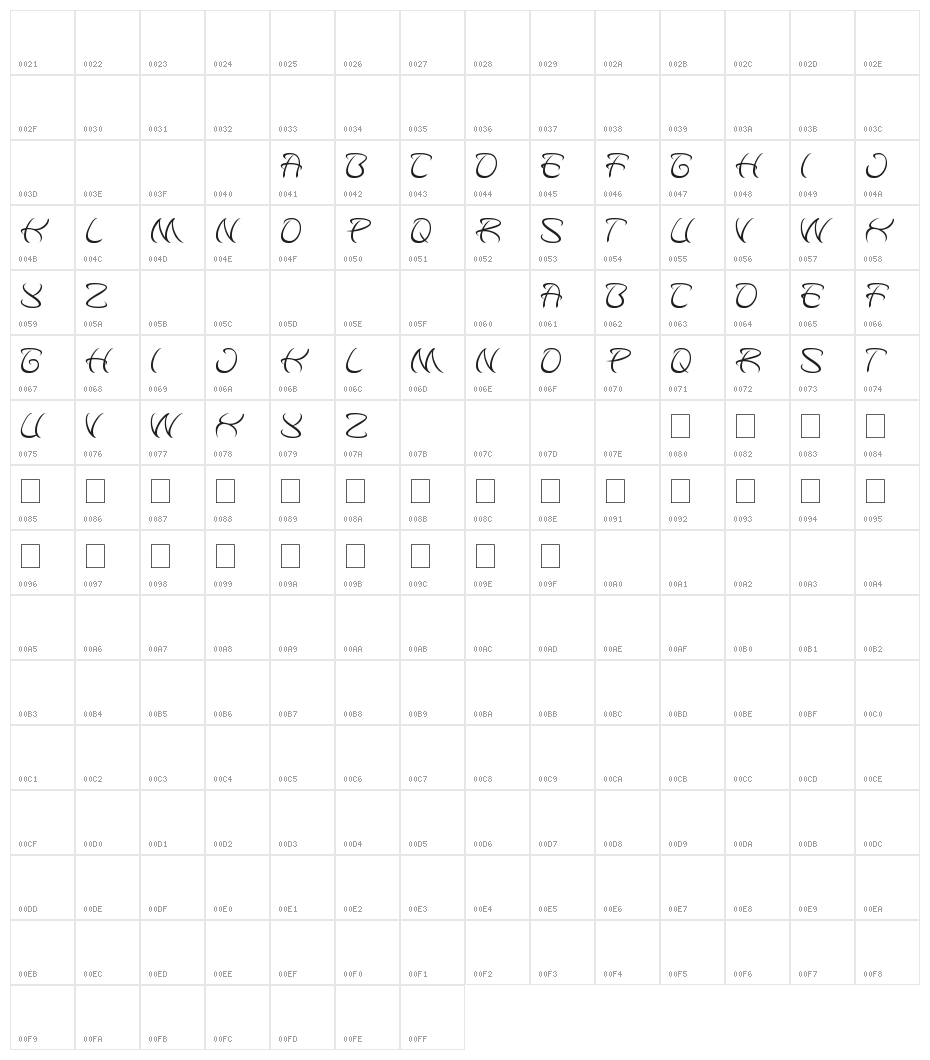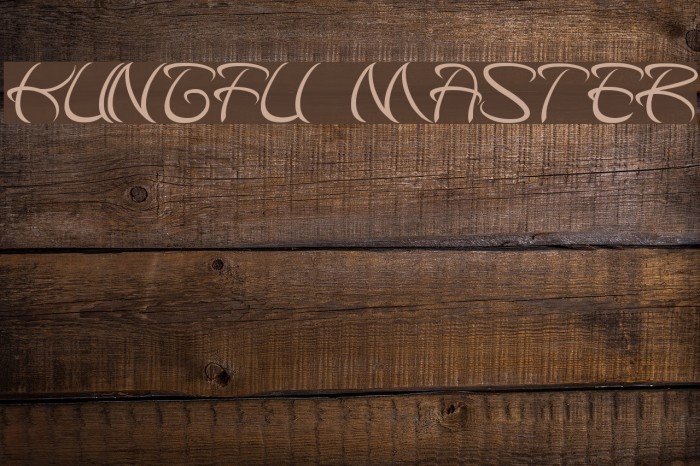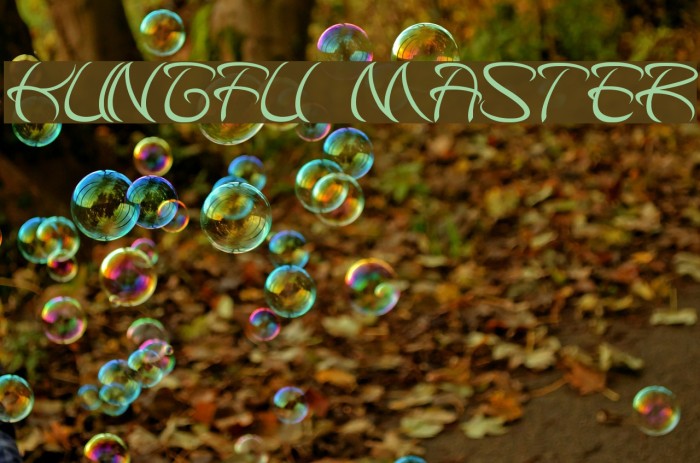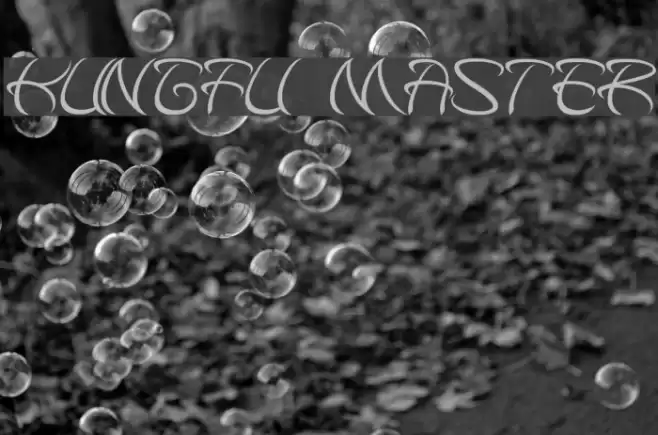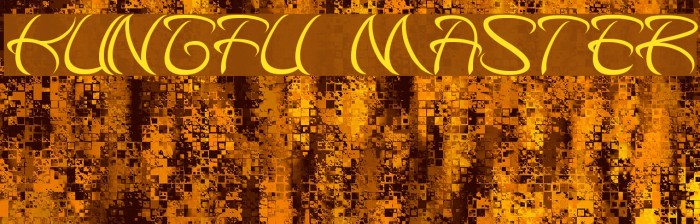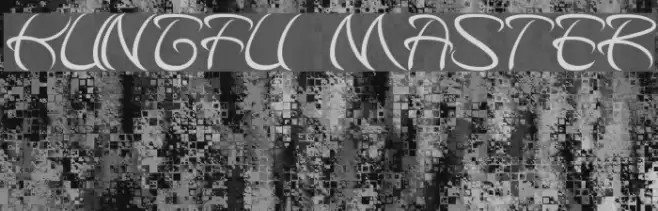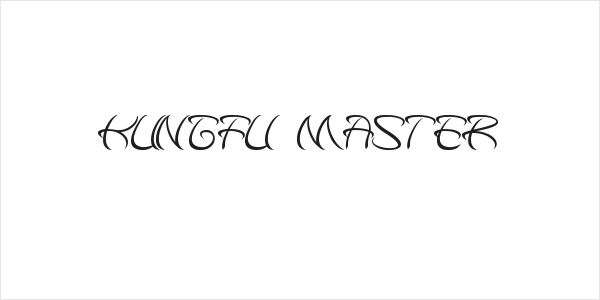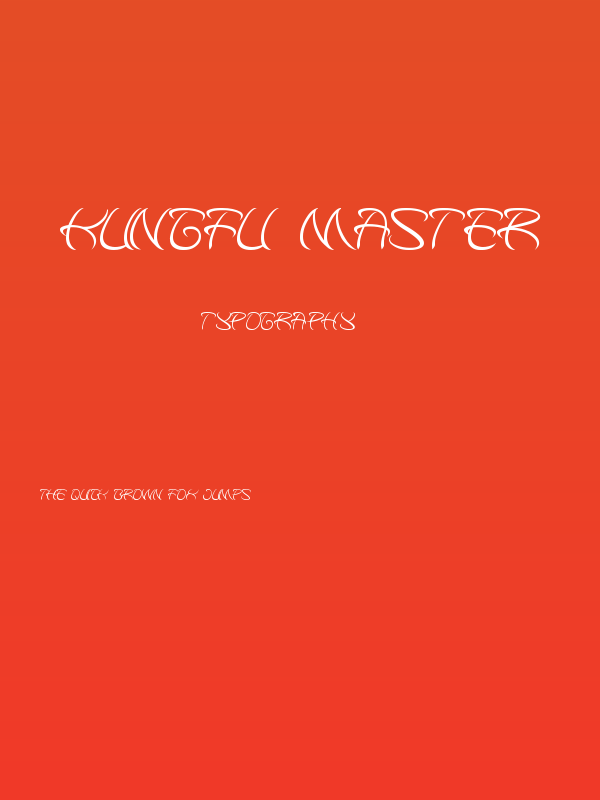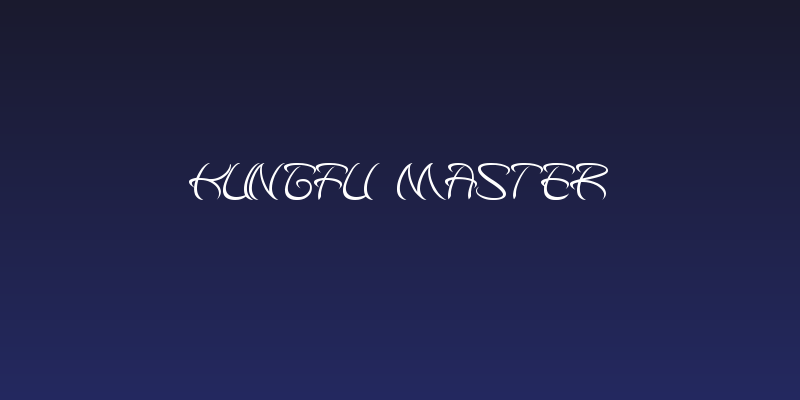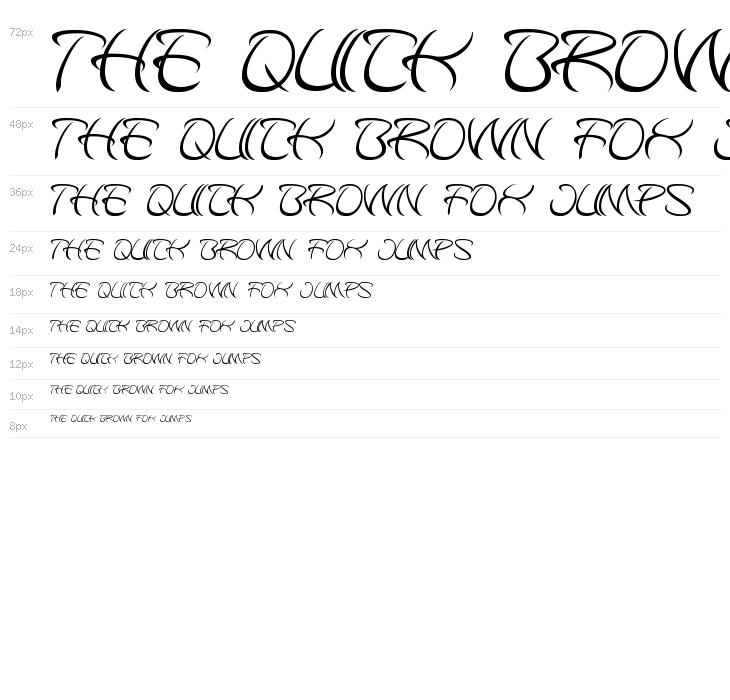
kungfu master Font
kungfu master Description
This font features a dynamic and energetic style, characterized by its flowing, curved strokes and sharp, pointed edges. The letters exhibit a sense of movement and fluidity, reminiscent of brush strokes in traditional calligraphy. The design incorporates both thick and thin lines, creating a striking contrast that enhances its visual appeal. The overall aesthetic is bold and expressive, making it suitable for projects that require a sense of action or excitement. The unique style of each character adds a personalized touch, making it ideal for creative and artistic applications.
| Proposed Projects | Ideal for martial arts event posters, dynamic logo designs, and creative branding projects. |